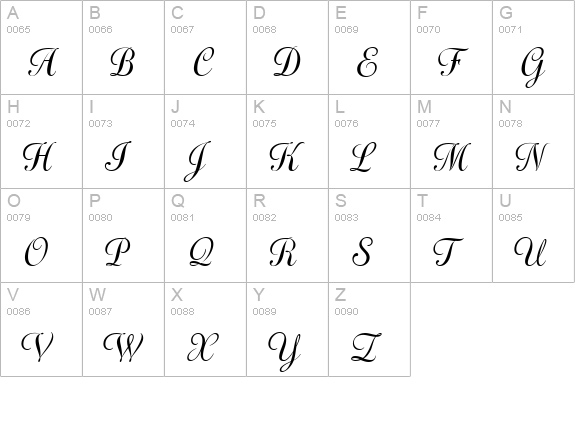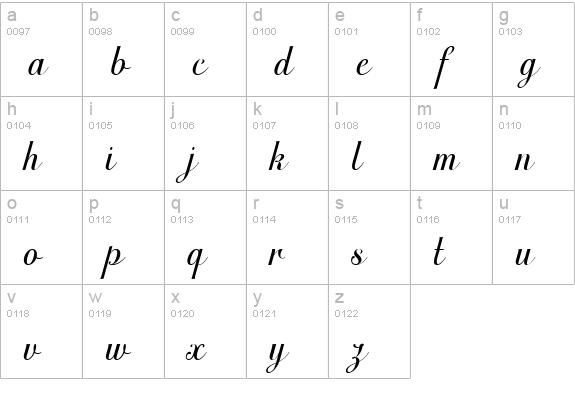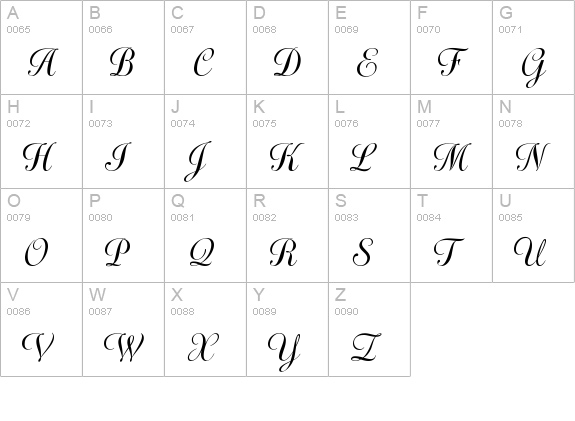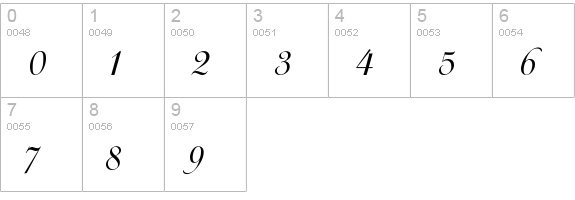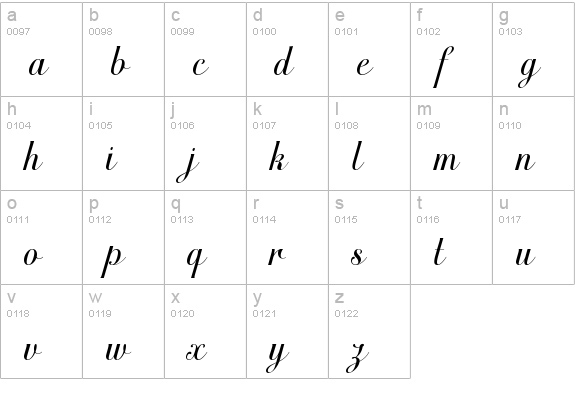
OttumHmkBold Font Details
Introducing OttumHmkBold font, a versatile and eye-catching typeface designed to make a bold statement in your design projects. With its strong and commanding presence, OttumHmkBold is perfect for headlines, titles, and branding materials that demand attention. This modern and stylish font features a unique blend of sharp angles and smooth curves, creating a harmonious balance between elegance and impact. Whether you're creating a sleek logo, a dynamic poster, or a striking web design, OttumHmkBold will help your message stand out and leave a lasting impression. Best of all, OttumHmkBold is completely free to download at FontsMarket.com. This means you can access this powerful font without any cost, making it a valuable addition to your font library. Don't miss out on the opportunity to elevate your designs with OttumHmkBold - download it today and unleash your creativity!